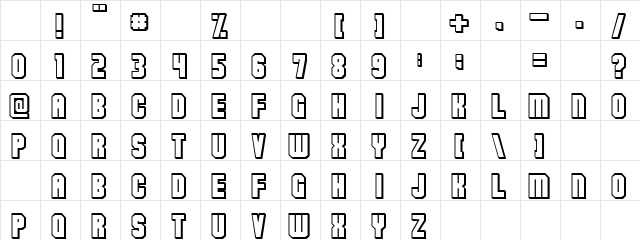
Maeverick Regular
Designer: JupiterImages
Design Context for Maeverick
Maeverick is a composed and adaptable typeface that performs quietly and consistently across a wide range of design contexts.